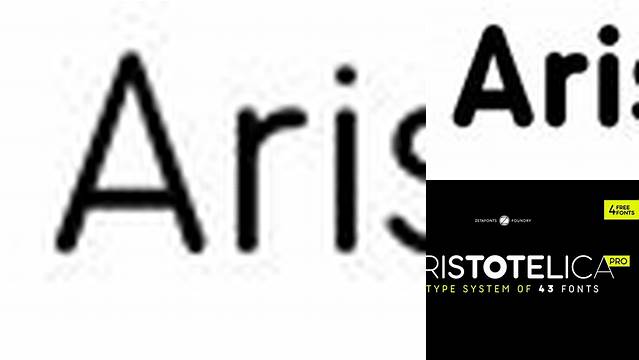
Guys, let's dive into the fascinating world of typography, where every curve, stroke, and weight contributes to the overall aesthetic and readability of our designs. In this comprehensive guide, we will explore the Aristotelica Pro Text Condensed Light font, a typeface that exudes elegance and sophistication. Whether you're a seasoned designer or just starting your journey in the world of typography, understanding the nuances of this font will undoubtedly elevate your work. The Aristotelica Pro Text Condensed Light font is more than just a set of characters; it's a carefully crafted design that blends classical influences with modern sensibilities. Its condensed form factor makes it an excellent choice for projects where space is at a premium, while its light weight lends a touch of refinement and airiness. The font is designed with a clear focus on readability, ensuring that your message is conveyed effectively across various mediums. The elegant letterforms of Aristotelica Pro Text Condensed Light make it an ideal option for projects that demand a sophisticated touch. This font's clean lines and balanced proportions contribute to a visual appeal that captures the reader's attention without being overly assertive. It is versatile enough to be used in a wide range of design contexts, from body text in books and magazines to headlines and branding materials. The Aristotelica Pro Text Condensed Light font stands out due to its unique blend of classic and contemporary design elements. Its roots can be traced back to classical Greek letterforms, giving it a timeless quality. However, it also incorporates modern design principles, making it suitable for a variety of contemporary applications. The condensed nature of the font allows you to fit more text into a given space without sacrificing readability. This is particularly useful in designs where space is limited, such as brochures, posters, and websites. The light weight of the font adds a touch of sophistication and elegance, making it an excellent choice for projects that require a refined look. The font's versatility extends to both print and digital media, making it a valuable asset for any designer. Its clear and legible letterforms ensure that it remains readable even at smaller sizes, while its elegant design makes it suitable for larger display purposes. Whether you're designing a website, a book, or a poster, the Aristotelica Pro Text Condensed Light font can help you achieve a polished and professional look. In the following sections, we will delve deeper into the characteristics of the Aristotelica Pro Text Condensed Light font, explore its best uses, and provide you with resources for downloading it for free. So, buckle up and get ready to embark on a journey into the world of this remarkable typeface. We'll cover everything from its history and design principles to practical tips for using it effectively in your projects. By the end of this guide, you'll have a thorough understanding of the Aristotelica Pro Text Condensed Light font and how it can enhance your design work. The Aristotelica Pro Text Condensed Light font is a testament to the power of thoughtful design and its ability to elevate the written word. Its elegance, versatility, and readability make it a valuable addition to any designer's toolkit. So, let's get started and explore the many possibilities that this font offers.
Now, let's break down what makes the Aristotelica Pro Text Condensed Light font truly special. It’s not just another typeface; it’s a carefully crafted tool designed for specific purposes. Key features include its condensed form, which allows for more text in less space – perfect for those tight layouts where every millimeter counts. The light weight gives it an airy, elegant feel, making it ideal for projects aiming for a sophisticated touch. When we talk about the key features of a font, we're looking at the elements that define its character and make it suitable for specific design applications. The Aristotelica Pro Text Condensed Light font stands out due to its unique combination of characteristics, which make it a versatile and valuable asset for designers. Its condensed form is a major advantage, as it allows you to fit more text into a limited space without sacrificing readability. This is particularly useful in designs such as brochures, posters, and websites, where space is often at a premium. The light weight of the font contributes to its elegant and refined appearance. This makes it an excellent choice for projects that require a touch of sophistication, such as invitations, corporate reports, and luxury branding materials. The font's clean lines and balanced proportions further enhance its visual appeal, ensuring that it captures the reader's attention without being overly assertive. The Aristotelica Pro Text Condensed Light font is characterized by its clear and legible letterforms. This is crucial for ensuring that your message is conveyed effectively, regardless of the size or medium in which the font is used. The font's design also incorporates a degree of personality, making it more engaging and memorable than generic typefaces. Its classic roots give it a timeless quality, while its modern design elements ensure that it remains relevant in contemporary contexts. Another key characteristic of the Aristotelica Pro Text Condensed Light font is its versatility. It can be used effectively in a wide range of design applications, from body text in books and magazines to headlines and branding materials. Its light weight makes it particularly well-suited for projects where a delicate and elegant touch is desired, while its condensed form allows it to be used in space-constrained designs. The font's versatility extends to both print and digital media, making it a valuable asset for designers working across different platforms. Its clear letterforms ensure that it remains readable on screens, while its elegant design makes it suitable for high-quality print applications. The Aristotelica Pro Text Condensed Light font is designed with attention to detail. Every curve, stroke, and weight has been carefully considered to ensure that the font is both visually appealing and highly functional. This level of care and craftsmanship is evident in the font's overall appearance, making it a standout choice for designers who appreciate quality and precision. The font's design also takes into account the importance of readability. The letterforms are designed to be easily distinguishable, even at smaller sizes, ensuring that your message is conveyed clearly and effectively. This is particularly important for body text, where readability is paramount. The Aristotelica Pro Text Condensed Light font is more than just a set of characters; it's a thoughtfully designed typeface that combines elegance, versatility, and readability. Its key features and characteristics make it a valuable addition to any designer's toolkit, allowing you to create visually stunning and highly functional designs. Understanding these features will help you use the font effectively in your projects, ensuring that your message is conveyed with clarity and style. So, let's continue our exploration of this remarkable typeface and discover how it can elevate your design work. Its unique blend of characteristics makes it a standout choice for designers who demand quality and precision.
Where does this font shine the most? Think elegant invitations, sophisticated branding, or any project needing a touch of class. The Aristotelica Pro Text Condensed Light font is a go-to for magazines, brochures, and websites where you want to convey a sense of refinement without being overly bold. The best uses for the Aristotelica Pro Text Condensed Light font are those that capitalize on its elegant and refined aesthetic. This font is particularly well-suited for projects where a touch of sophistication is desired, such as invitations, corporate reports, and luxury branding materials. Its light weight and condensed form make it an excellent choice for designs where space is limited or where a delicate and airy feel is preferred. One of the key areas where the Aristotelica Pro Text Condensed Light font excels is in branding. Its elegant letterforms and clean lines make it an ideal choice for creating logos, business cards, and other branding materials that convey a sense of professionalism and sophistication. The font's light weight adds a touch of class, while its condensed form allows it to be used effectively in designs where space is at a premium. This makes it a versatile option for a wide range of branding applications, from corporate identity to luxury goods packaging. In addition to branding, the Aristotelica Pro Text Condensed Light font is also well-suited for editorial design. Its clear and legible letterforms make it an excellent choice for body text in books, magazines, and newsletters. The font's elegant design enhances the overall reading experience, while its condensed form allows for more text to be fitted onto a page without sacrificing readability. This makes it a practical and aesthetically pleasing option for a variety of editorial projects. The Aristotelica Pro Text Condensed Light font is also a great choice for website design. Its light weight and clean lines make it easy to read on screens, while its elegant design adds a touch of sophistication to any website. The font's condensed form can be particularly useful in website headers and navigation menus, where space is often limited. Its versatility ensures that it can be used effectively in a wide range of website designs, from corporate websites to personal blogs. Invitations and event materials are another area where the Aristotelica Pro Text Condensed Light font shines. Its elegant design makes it an ideal choice for creating invitations that convey a sense of refinement and sophistication. The font's light weight adds a touch of class, while its condensed form allows for more text to be included on the invitation without making it look cluttered. This makes it a practical and aesthetically pleasing option for weddings, parties, and other special events. The Aristotelica Pro Text Condensed Light font is a versatile typeface that can be used in a wide range of design applications. Its elegant design, clear letterforms, and condensed form make it an excellent choice for projects where a touch of sophistication is desired. Whether you're designing a logo, a website, or an invitation, this font can help you create visually stunning and highly functional designs. Its ability to convey elegance and refinement makes it a valuable asset for any designer's toolkit. So, let's explore how you can download this font for free and start using it in your projects. Its versatility ensures that it can be used effectively in a variety of design contexts.
Alright, let’s talk strategy. To really make the Aristotelica Pro Text Condensed Light font pop, use it sparingly for headings or short blocks of text. Pair it with a bolder font for contrast or a simpler sans-serif for body text. Remember, readability is key, so ensure your text size and line spacing are spot on. To use the Aristotelica Pro Text Condensed Light font effectively, it's important to consider its unique characteristics and how it interacts with other design elements. This font, with its elegant and refined aesthetic, can add a touch of sophistication to your projects, but it's essential to use it judiciously to achieve the best results. One key tip for using the Aristotelica Pro Text Condensed Light font effectively is to use it sparingly. Due to its light weight and condensed form, it's best suited for headings, subheadings, or short blocks of text rather than large amounts of body text. Using it sparingly allows its elegant characteristics to stand out without overwhelming the design. When using the Aristotelica Pro Text Condensed Light font, it's also important to consider its readability. While its elegant letterforms are visually appealing, its light weight can make it challenging to read at smaller sizes or on screens. To ensure readability, it's best to use this font at larger sizes and to pay careful attention to line spacing and letter spacing. Adequate line spacing and letter spacing will help to improve the legibility of the text and make it easier for readers to follow. Another important tip is to pair the Aristotelica Pro Text Condensed Light font with other fonts that complement its style. Pairing fonts effectively can enhance the overall design and create a visual hierarchy that guides the reader's eye. A good strategy is to pair this font with a bolder typeface for contrast or a simpler sans-serif font for body text. The contrast between the different typefaces will create visual interest and help to make the design more engaging. When pairing fonts, it's important to consider the overall tone and style of the project. The fonts you choose should work together to convey the desired message and create a cohesive visual identity. Experiment with different font pairings to see what works best for your project, and don't be afraid to try something new. In addition to font pairing, it's also important to consider the color palette when using the Aristotelica Pro Text Condensed Light font. The colors you choose can have a significant impact on the overall look and feel of the design, so it's important to select colors that complement the font's elegant aesthetic. Light and airy colors, such as pastels and neutrals, can work well with this font, as they enhance its delicate and refined characteristics. When using color, it's also important to consider contrast. Adequate contrast between the text and the background will help to improve readability and make the text stand out. Experiment with different color combinations to see what works best for your project, and don't be afraid to use color to create visual interest. Finally, it's important to pay attention to the overall composition of the design when using the Aristotelica Pro Text Condensed Light font. The font should be integrated seamlessly into the design, and its placement should be carefully considered to ensure that it enhances the overall visual appeal. Use whitespace effectively to create a sense of balance and harmony, and avoid overcrowding the design with too much text or graphics. By following these tips, you can use the Aristotelica Pro Text Condensed Light font effectively and create visually stunning and highly functional designs. Remember to use it sparingly, pay attention to readability, pair it with complementary fonts, consider the color palette, and pay attention to the overall composition. With careful planning and execution, you can leverage the font's unique characteristics to elevate your design work and create a lasting impression.
So there you have it, guys! The Aristotelica Pro Text Condensed Light font is a fantastic tool in your design arsenal, especially when you need that touch of elegance and sophistication. Remember the key features, best uses, and those crucial licensing considerations. Now go forth and create something beautiful! In conclusion, the Aristotelica Pro Text Condensed Light font is a remarkable typeface that offers a unique blend of elegance, versatility, and readability. Its distinctive characteristics make it a valuable addition to any designer's toolkit, and its ability to convey sophistication and refinement makes it a standout choice for a wide range of projects. Throughout this comprehensive guide, we have explored the various aspects of this font, from its key features and characteristics to its best uses and licensing considerations. We have also provided tips for using it effectively in your designs, ensuring that you can leverage its unique qualities to create visually stunning and highly functional work. The Aristotelica Pro Text Condensed Light font is more than just a set of characters; it's a carefully crafted design that embodies the principles of typography at their finest. Its condensed form allows for more text to be fitted into a limited space, while its light weight adds a touch of class and sophistication. Its clear and legible letterforms ensure that your message is conveyed effectively, and its versatile design makes it suitable for a variety of applications. Whether you're designing a logo, a website, or an invitation, the Aristotelica Pro Text Condensed Light font can help you achieve a polished and professional look. Its elegant aesthetic makes it an ideal choice for projects that require a touch of refinement, and its practical design ensures that it remains readable and functional across different mediums. By understanding the key features and characteristics of the Aristotelica Pro Text Condensed Light font, you can use it effectively to enhance your designs and create a lasting impression. Remember to use it sparingly, pay attention to readability, pair it with complementary fonts, consider the color palette, and pay attention to the overall composition. With careful planning and execution, you can leverage the font's unique qualities to elevate your design work and create a visual identity that stands out from the crowd. In addition to its aesthetic qualities, it's also important to consider the licensing implications when using the Aristotelica Pro Text Condensed Light font. Understanding the different types of licenses and complying with the licensing terms is crucial to avoid legal issues and use the font responsibly. Before using the font in any commercial project, be sure to carefully review the licensing information and ensure that you have the necessary permissions. Finally, it's important to remember that typography is an art form in itself. Choosing the right font for a project is a crucial decision that can significantly impact the overall success of the design. The Aristotelica Pro Text Condensed Light font is a valuable tool in your design arsenal, but it's just one piece of the puzzle. By understanding the principles of typography and experimenting with different typefaces, you can develop your own unique style and create designs that are both visually appealing and highly effective. So, embrace the elegance of the Aristotelica Pro Text Condensed Light font, but don't be afraid to explore other typefaces and experiment with different design approaches. The world of typography is vast and exciting, and there are always new fonts to discover and new techniques to learn. With dedication and practice, you can master the art of typography and create designs that are truly exceptional. Now go forth and create something beautiful, guys! The world is waiting to see what you can do.